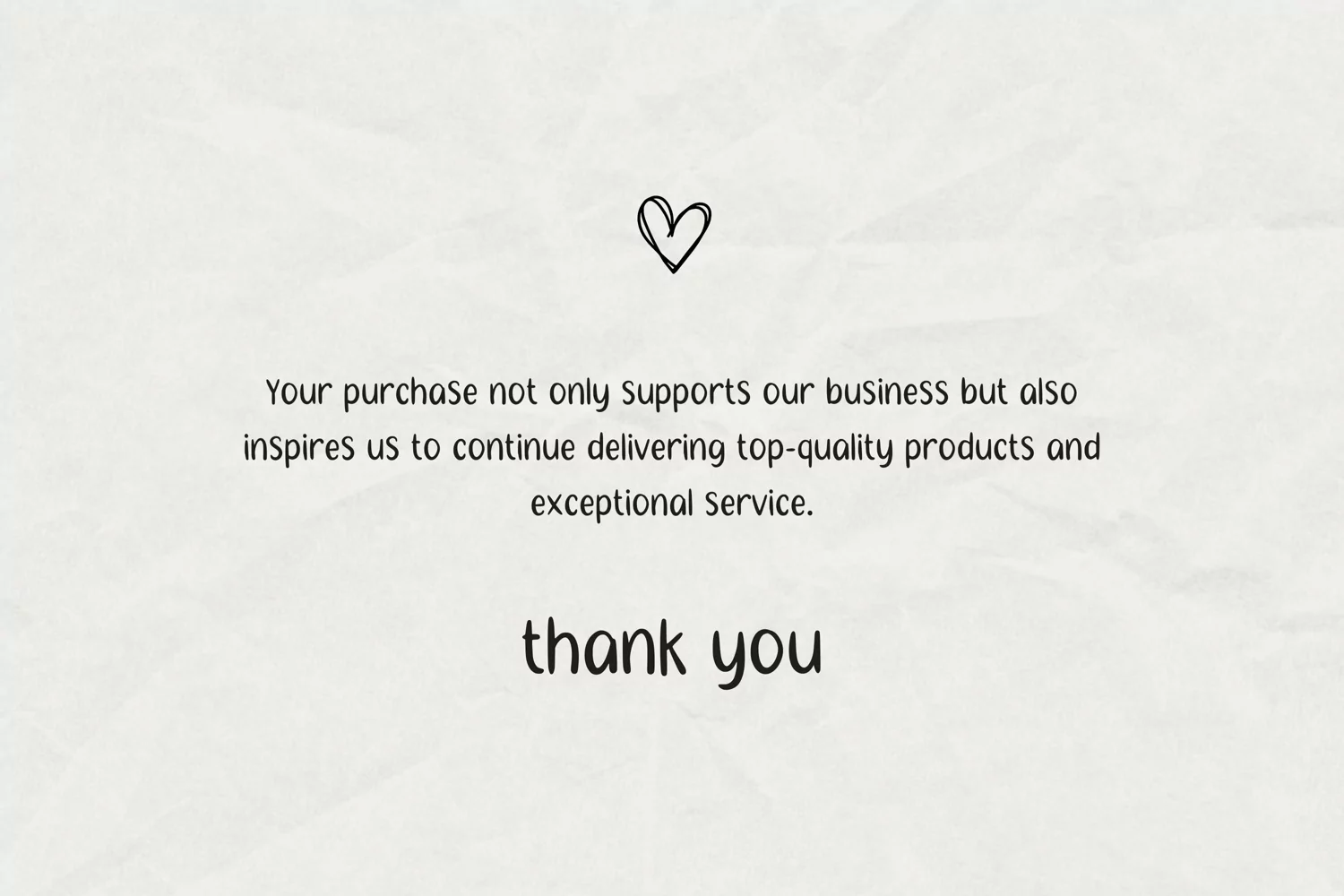
Beauty Safron is a charming and whimsical font that combines elegance with playfulness. Its cute, rounded letters and delicate flourishes make it perfect for adding a touch of feminine flair to invitations, greeting cards, and any projects. Ideal for any design that aims to evoke a sense of warmth and creativity, this font captures the essence of beauty in its playful curves and unique style.